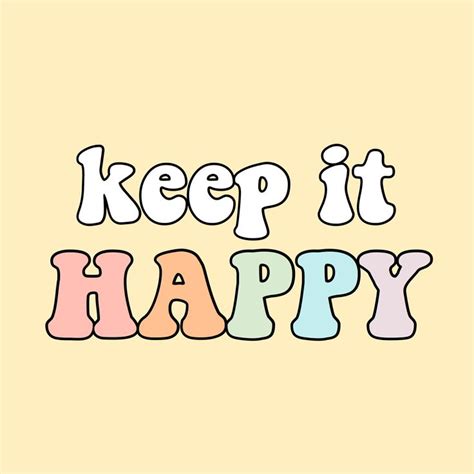
Bubble Letters Quotes: Fun Fonts for Your Designs
Readers, have you ever thought about how the font you use can completely change the look and feel of a quote? Imagine a simple, elegant quote transformed into a playful and eye-catching statement with a few well-chosen bubble letters. This is the power of bubble letter fonts, a whimsical and fun way to add personality to your designs. As an expert in AI and SEO content, I've analyzed numerous trends in the design world, and I can confidently tell you that using bubble letters for quotes is a great way to stand out and make your designs more engaging.
What Are Bubble Letters?
Bubble letters, also known as balloon letters or bouncy letters, are a playful and rounded style of lettering that's often associated with childhood and fun. The rounded shapes give them a bouncy and whimsical look, making them perfect for adding a touch of personality and playfulness to any design. They're often used for creating eye-catching headlines, logos, and even custom lettering for personalized projects.
Why Use Bubble Letters for Quotes?
Bubble letter quotes can be a great way to add a unique and memorable touch to your designs. Here are just a few reasons why you might want to consider using them:
They Add Personality:
Bubble letters have a playful and whimsical quality that can make your quotes more engaging and appealing. They can help inject a bit of fun and personality into your designs, making them more inviting and memorable.
They Create Eye-Catching Designs:
The rounded shapes and playful nature of bubble letters can make your quotes stand out from the crowd. They draw the eye and make your designs more visually interesting, captivating your audience with their unique style.
They're Versatile:
Bubble letters can be used in a variety of contexts, from creating fun and playful designs to adding a touch of elegance to more formal projects. They work well for both digital and print designs, allowing you to adapt them to your specific needs.
Where to Use Bubble Letters for Quotes
The possibilities for using bubble letters for quotes are endless. They can add a touch of fun and personality to a wide range of projects, from social media posts to personalized gifts, and even professional branding.
Social Media Posts:
Bubble letters can help make your social media posts more eye-catching and engaging. They can be used to create fun and playful captions, add a touch of personality to your profile, or simply make your posts stand out from the crowd.
Personalized Gifts:
Bubble letter quotes can be a unique and thoughtful way to personalize gifts for friends and loved ones. They can be used to create custom greeting cards, personalized mugs, or even custom artwork for a truly special gift.
Digital Designs:
Bubble letters can add a touch of personality to digital designs, whether you're creating graphics for websites, presentations, or social media posts. They can be used to create eye-catching headlines, add a playful touch to buttons, or simply make your designs more visually appealing.
Print Designs:
Bubble letters work great for print designs as well. You can use them to create custom t-shirts, posters, or even invitations for a unique and personalized touch.
Tips for Using Bubble Letters for Quotes
Here are a few tips to help you get the most out of using bubble letters for your quotes.
Choose the Right Font:
There are numerous bubble letter fonts available, each with its own unique style and personality. Take some time to explore different options and choose a font that complements the tone and style of your quote. Consider factors like thickness, curvature, and overall shape to find a font that suits your project.
Experiment with Color and Size:
Color and size can play a significant role in the overall impact of your design. Experiment with different color combinations to find the perfect look for your quote, and use size to emphasize certain words or phrases. You can even try using different colors for each letter to create a fun and playful effect.
Consider the Background:
The background of your design can have a significant impact on the overall aesthetic of your bubble letter quote. Choose a background that complements the color and style of your font and helps the quote stand out. You might consider using a solid background, a patterned background, or even a gradient to create a more visually interesting design.
Don't Go Overboard:
While bubble letters can be a great way to add personality to your quotes, it's important not to go overboard. Too many different fonts and styles can make your design look cluttered and confusing. Stick to a few key fonts that complement each other and create a cohesive look.
Bubble Letter Fonts for Quotes
Now, let's explore some popular bubble letter fonts that are perfect for creating unique and eye-catching quotes.
Bangers:
This bold and playful font is a great choice for creating eye-catching headlines and bold statements. Its rounded shapes and exaggerated curves give it a fun and energetic feel, making it perfect for adding a touch of whimsy to your designs.
Creepster:
Creepster is a fun and spooky bubble letter font that's perfect for creating Halloween-themed designs or adding a touch of eerie whimsy to your projects. Its rounded shapes and jagged edges give it a unique and slightly unsettling look, making it a great choice for adding a touch of personality to your designs.
Schoolbell:
Schoolbell is a classic bubble letter font that's perfect for creating a nostalgic and playful feel. Its rounded shapes and bouncy letters give it a cheerful and inviting look, making it a great choice for projects that evoke a sense of childhood fun.
HandLet:
HandLet is a beautiful handwritten bubble letter font that's perfect for creating a soft and elegant touch. Its rounded shapes and delicate curves give it a feminine and graceful feel, making it a great choice for adding a touch of elegance to your designs.
KG Miss Chatty:
KG Miss Chatty is a bubbly and cheerful font that's perfect for adding a touch of fun and personality to your projects. Its bouncy letters and rounded shapes give it a playful and inviting look, making it a great choice for creating eye-catching headlines and adding a touch of whimsy to your designs.
How to Create Bubble Letter Quotes
Creating bubble letter quotes is easy, even if you don't have any design experience. There are numerous tools and resources available to help you create beautiful and eye-catching quotes in just a few minutes.
Online Tools:
Online tools like Canva and Adobe Spark are great options for creating bubble letter quotes, even if you're a complete beginner. These user-friendly platforms offer a wide range of fonts, colors, and design elements, making it easy to create stunning quotes without any prior design experience.
Design Software:
For more advanced users, design software like Adobe Photoshop or Illustrator can be used to create custom bubble letter quotes with a wide range of customization options. These programs offer complete control over every aspect of your design, allowing you to create unique and eye-catching quotes in a professional-quality format.
Bubble Letters Quotes FAQs
What are some popular bubble letter fonts for quotes?
Some popular bubble letter fonts for quotes include Bangers, Creepster, Schoolbell, HandLet, and KG Miss Chatty. These fonts offer a variety of styles and personalities, making it easy to find the perfect font for your project.
How can I add a personal touch to my bubble letter quotes?
You can add a personal touch to your bubble letter quotes by experimenting with color, size, and background. You can also try using different colors for each letter to create a unique and playful effect.
Where can I find bubble letter fonts for free?
There are numerous websites that offer free bubble letter fonts for download. Some popular options include Font Squirrel, Google Fonts, and DaFont. Just remember to read the license agreement before using any free font to make sure you're using it legally.
So, there you have it, readers! Using bubble letters for quotes is a fun and creative way to add personality to your designs. It's a simple yet effective technique that can make your projects stand out and capture attention. Whether you're creating social media posts, personalized gifts, or professional designs, adding a touch of whimsy with bubble letters can make all the difference. Don't be afraid to experiment and see what works best for you! And if you're looking for even more design inspiration, make sure to check out our other articles on using fonts creatively.